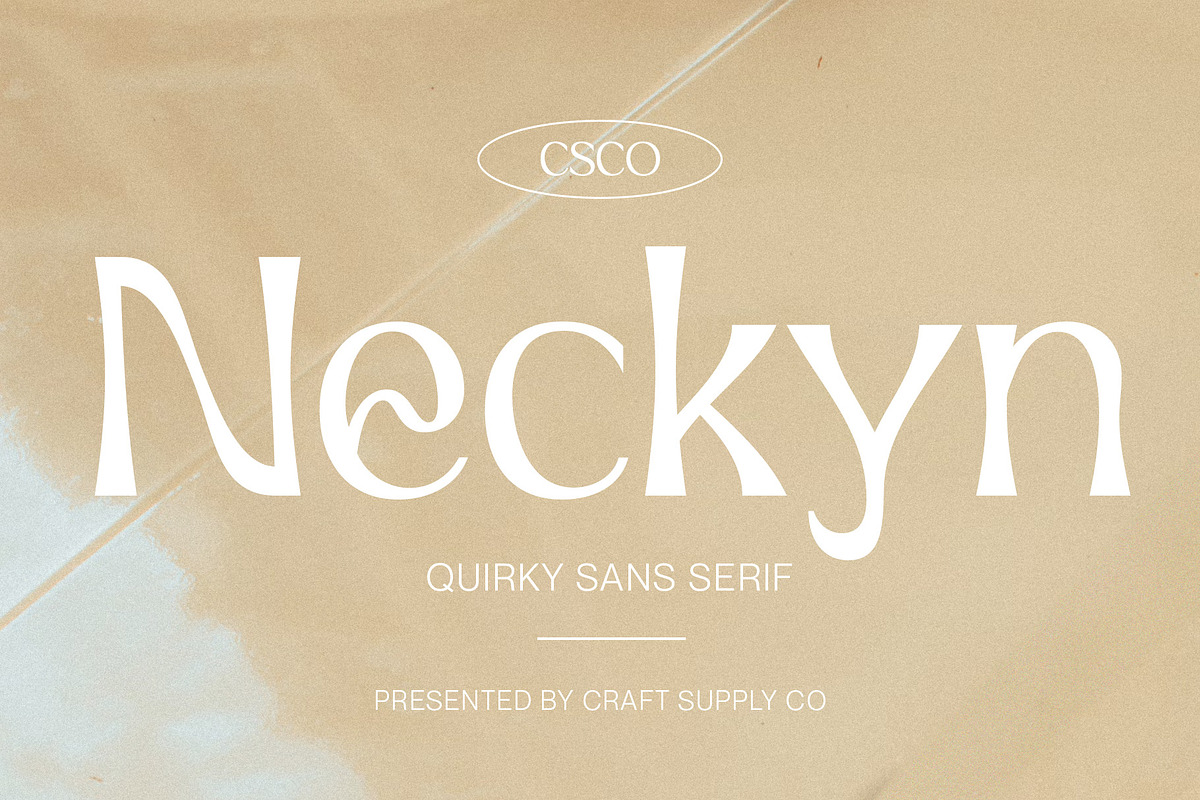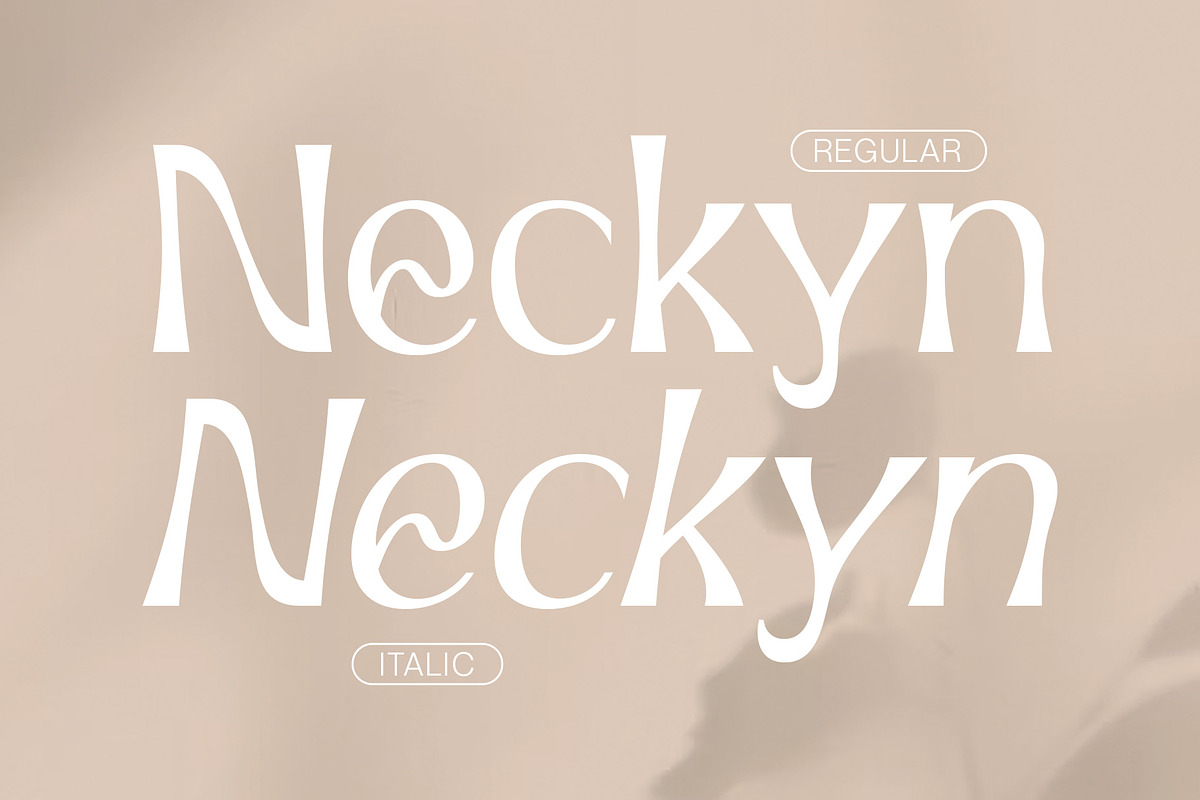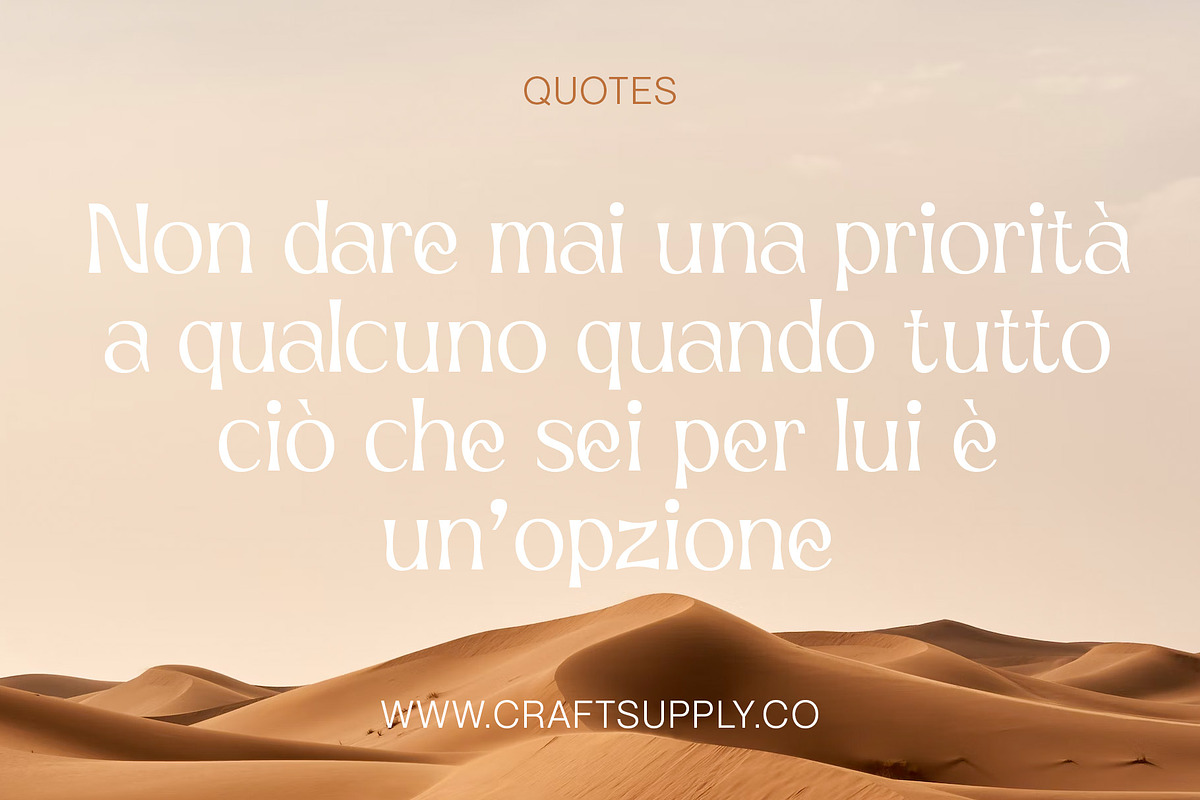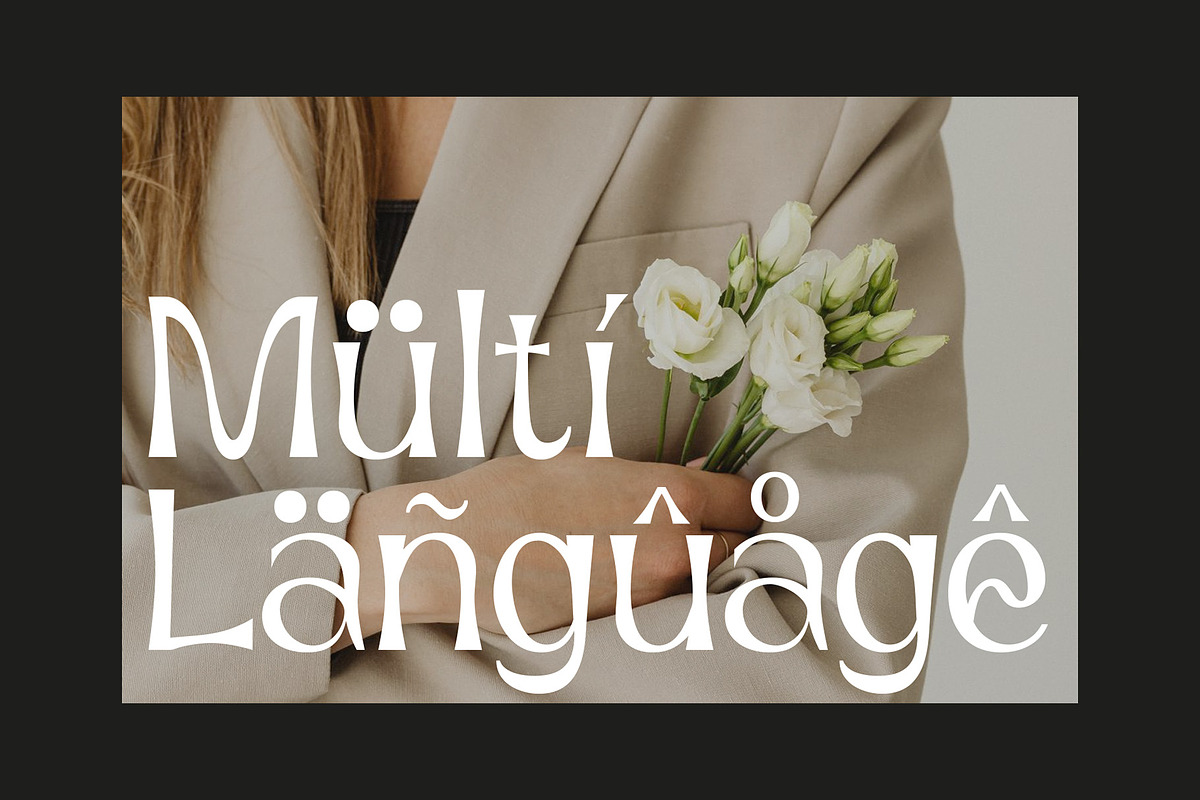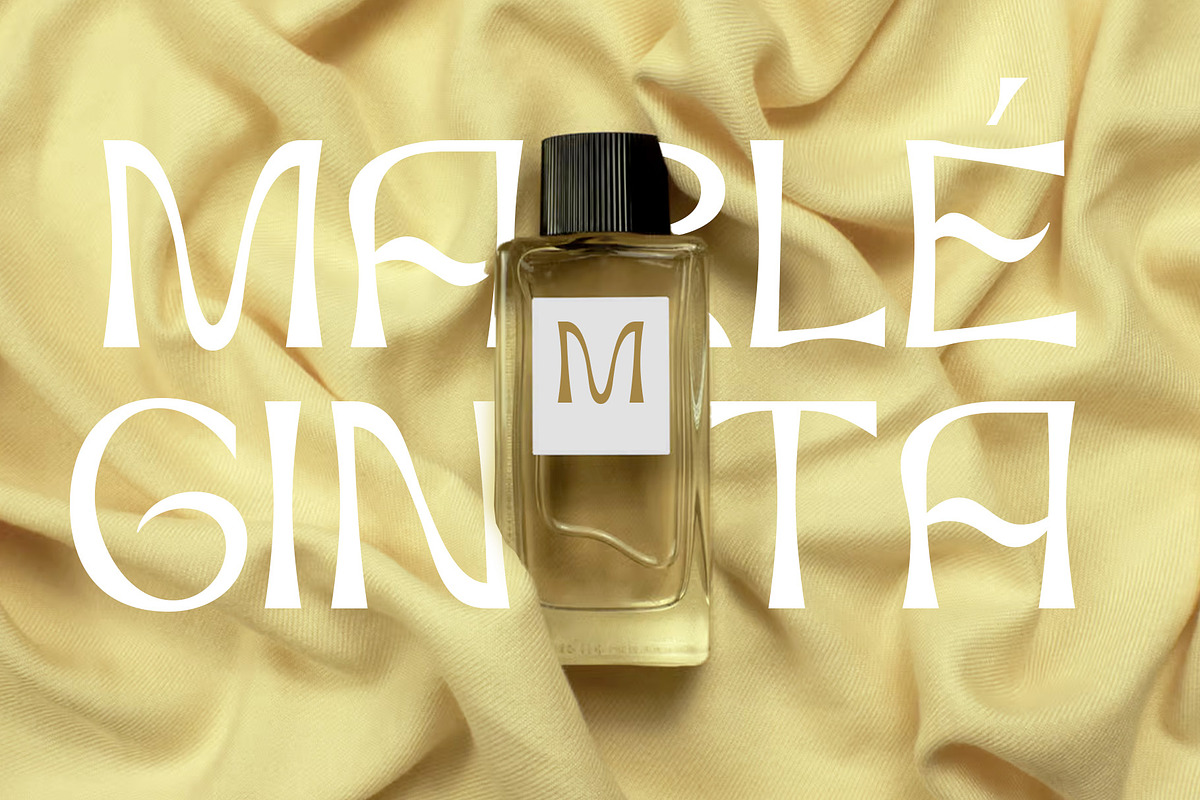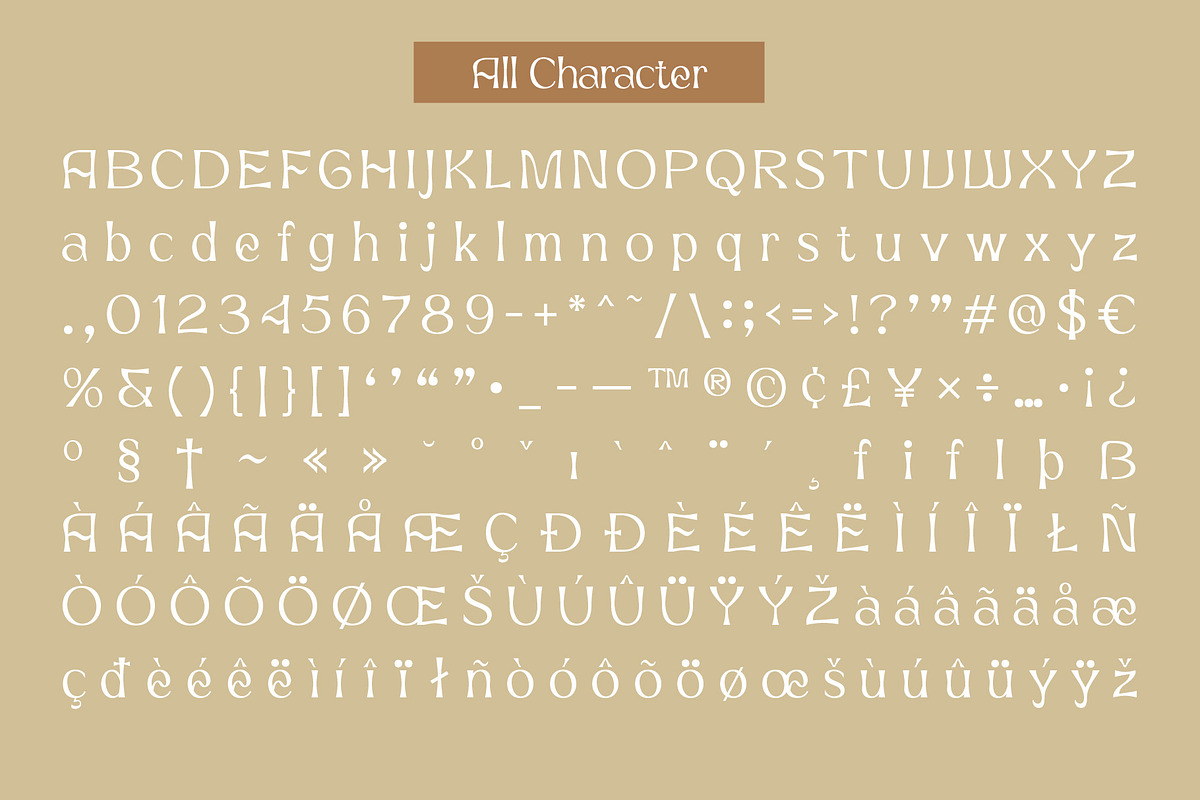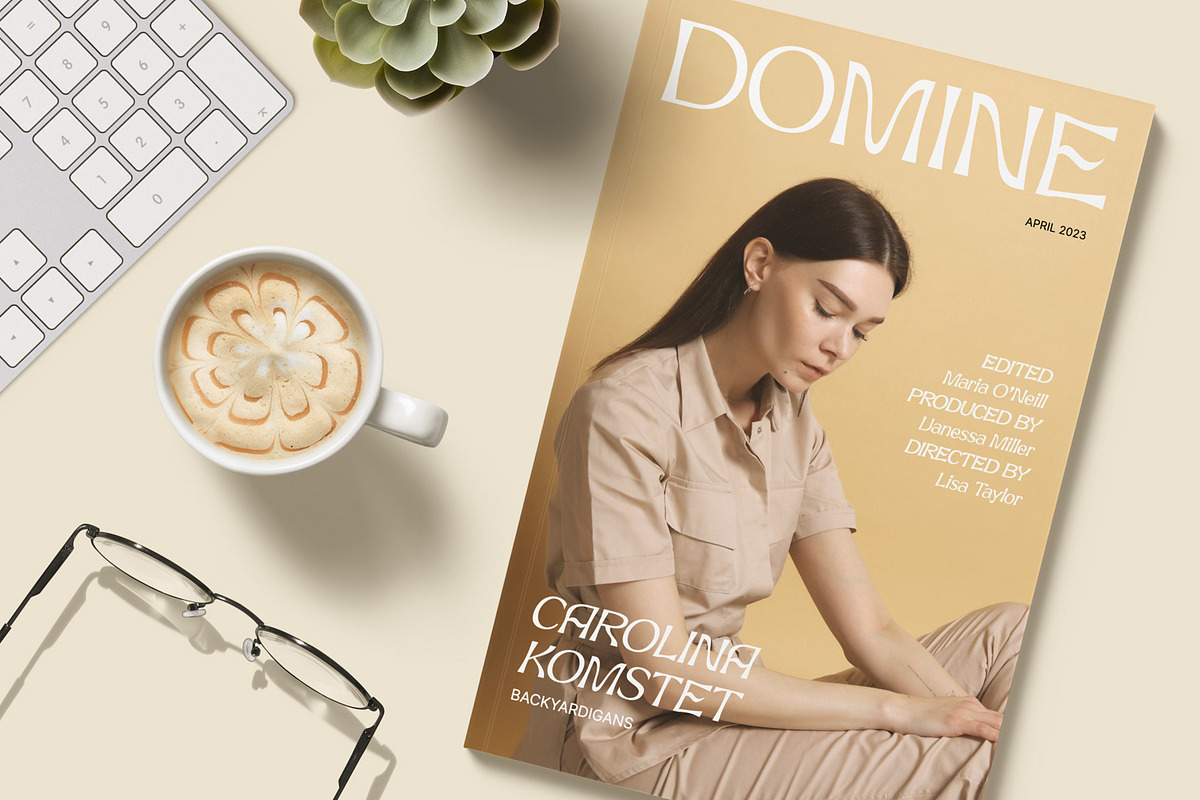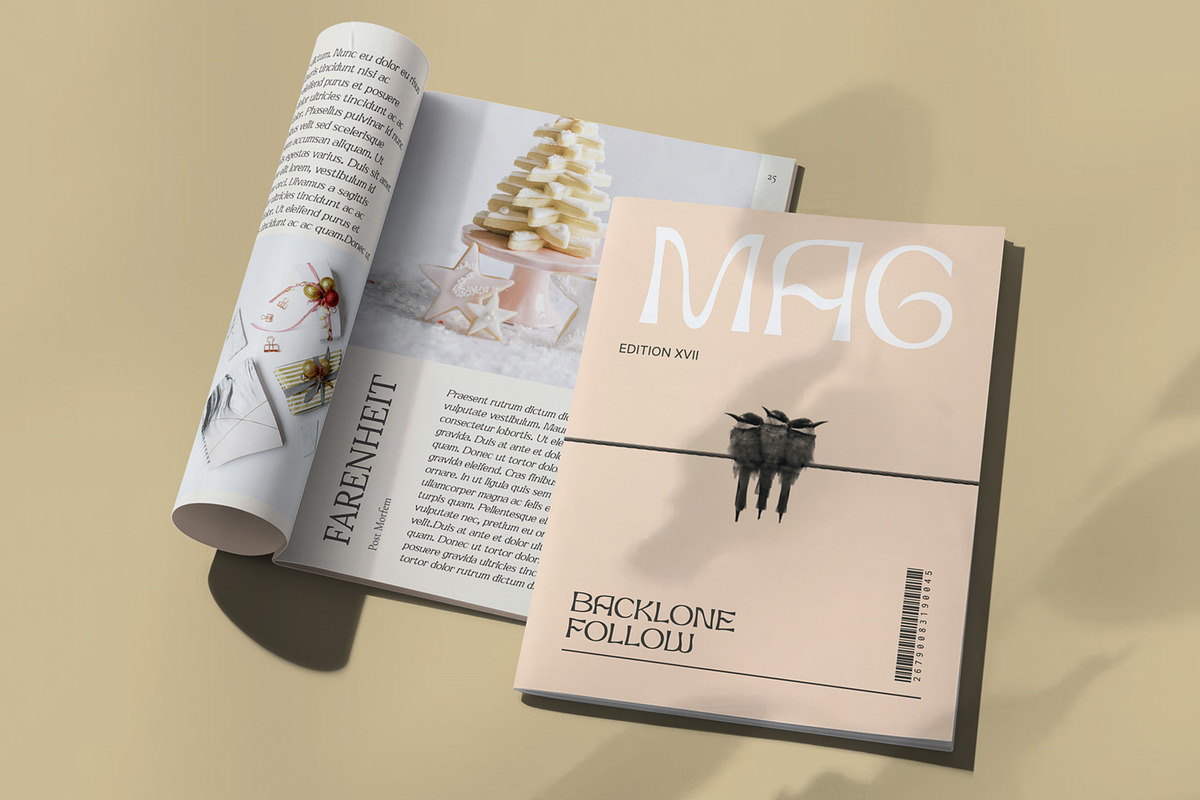
Neckyn - Quirky Sans Serif
Introducing Neckyn - Quirky Sans Serif: A playful typeface that embraces individuality with its unique character. With its unconventional shapes and quirky charm, Neckyn adds a distinctive touch to any project, making a charming statement that stands out from the crowd.
- Neckyn Regular
- Neckyn Italic